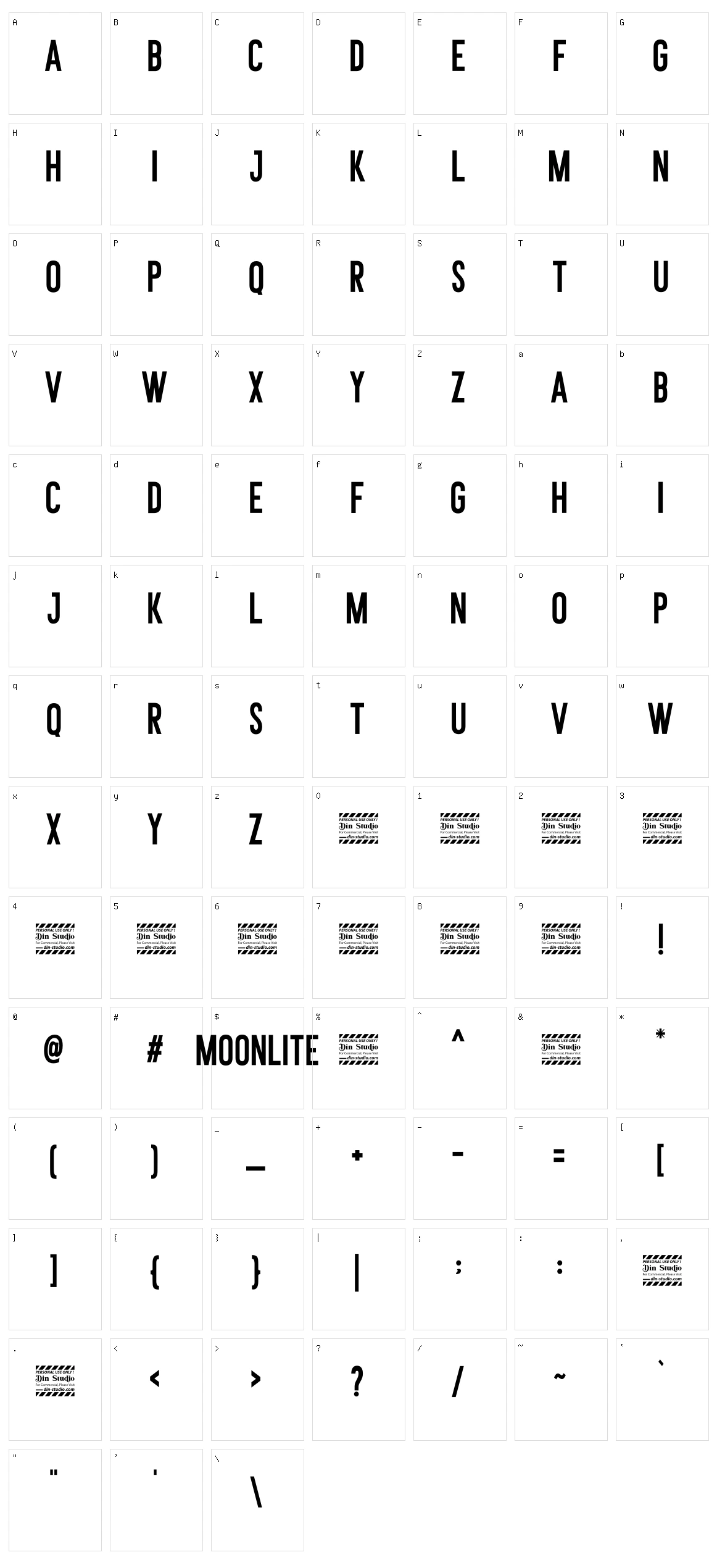
The free font Moonlite is carefully designed by Din Studio, showcasing a thoughtful balance of creativity and usability and falls under the Sans serif font style. When you download the ZIP file, it contains only 250.75 KB of font files, making it lightweight and quick to download. Please review the license details below to understand permitted usage and distribution rights. If license information is not available, we recommend using this font for personal projects only or contacting the author directly for commercial usage permissions.